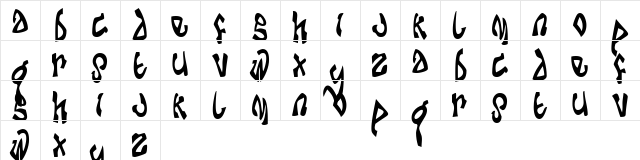
Dobermans Regular
Design Context for Dobermans Typeface
Dobermans is a composed and adaptable typeface that performs quietly and consistently across a wide range of design contexts.